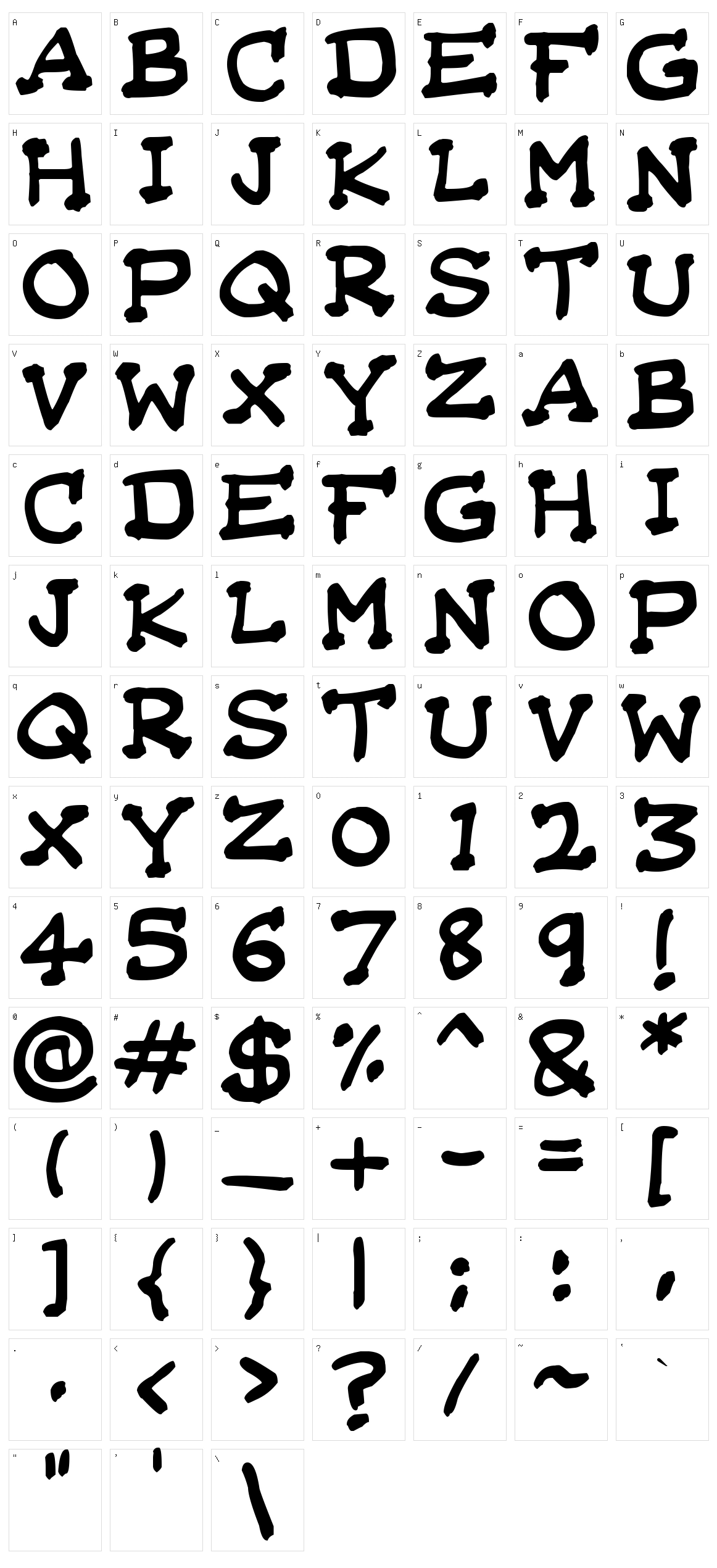
The free font Da Serif Kid is carefully designed by Hawtpixel, showcasing a thoughtful balance of creativity and usability and falls under the Cartoon font style. When you download the ZIP file, it contains only 111.14 KB of font files, making it lightweight and quick to download. Please review the license details below to understand permitted usage and distribution rights. If license information is not available, we recommend using this font for personal projects only or contacting the author directly for commercial usage permissions.